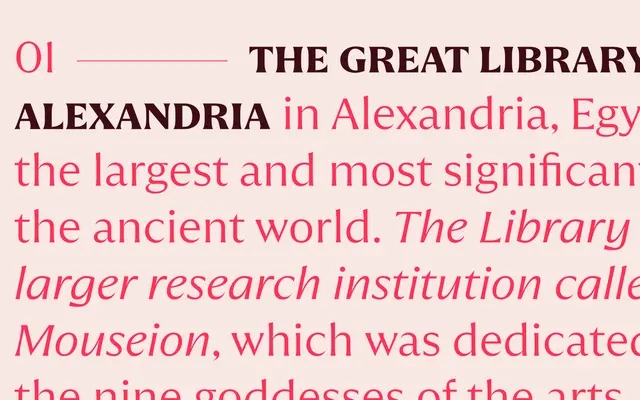
Quaria Text specimen from Studio Rene Bieder
A text-optimised serif in five weights with matching italics, offering an extensive set of OpenType alternates suited to editorial and publishing work.
Quaria Text spans Regular to ExtraBold across ten styles, each weight paired with an italic. The family ships with small capitals, oldstyle figures, tabular figures, fractions and a broad range of character alternates covering glyphs such as a, g, y, J, Q, G and R/K/k. A Display sibling handles larger sizes, making the two together a practical pairing for structured typographic systems.
The page presents a text-optimised serif family with optical sizing distinct from its Display sibling, featuring humanist characteristics and a full range of OpenType features typical of contemporary text serifs.